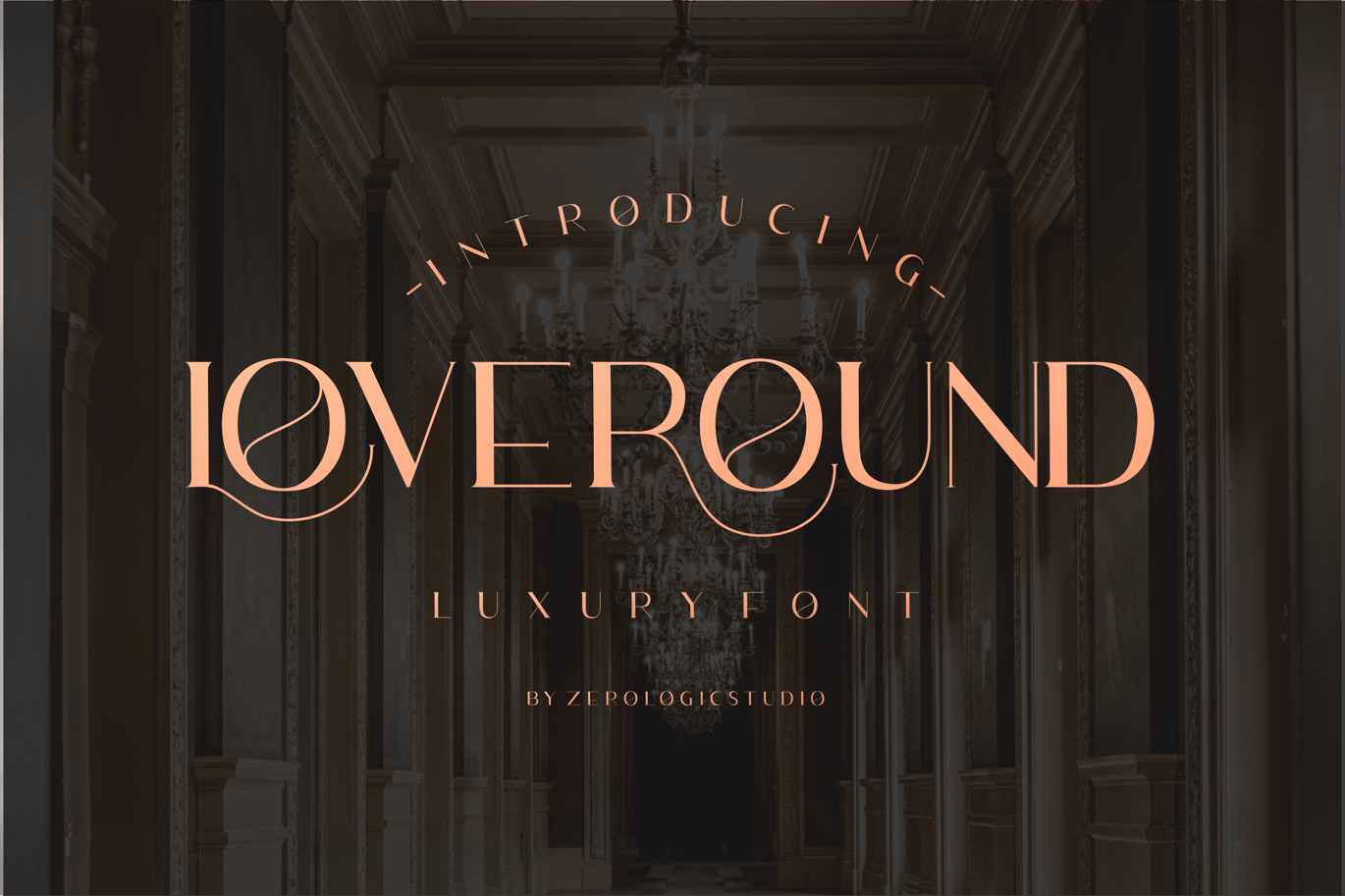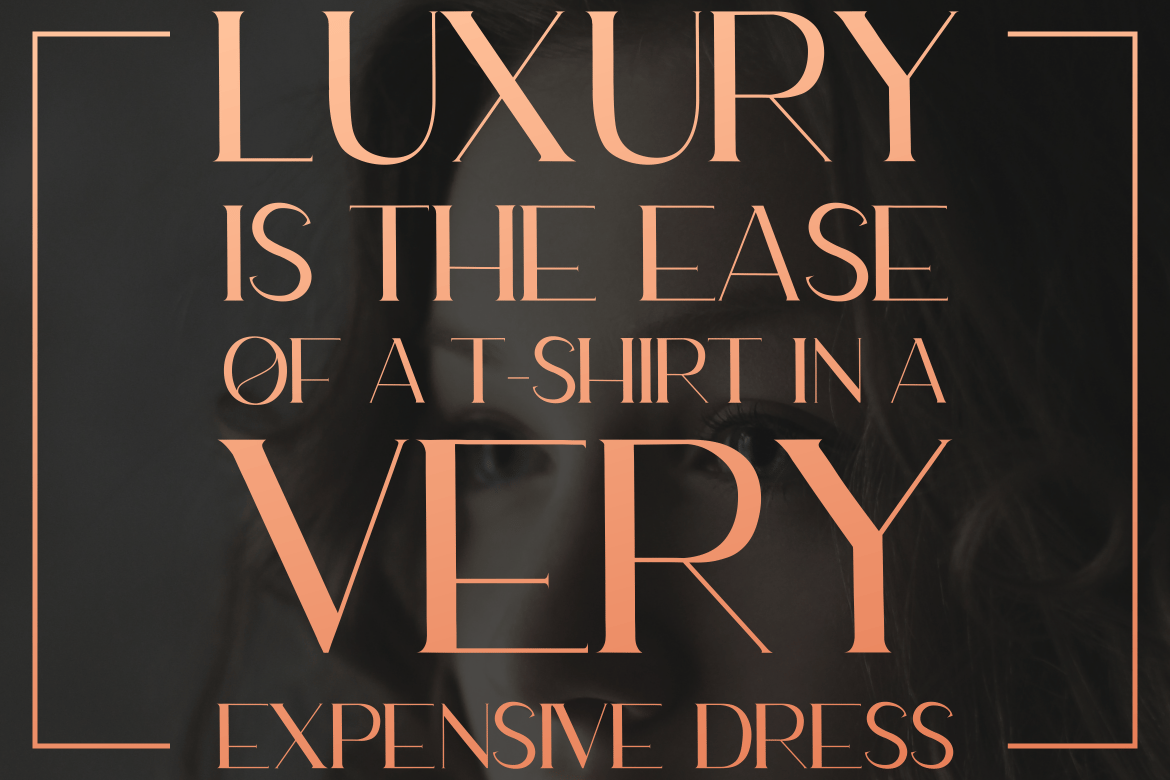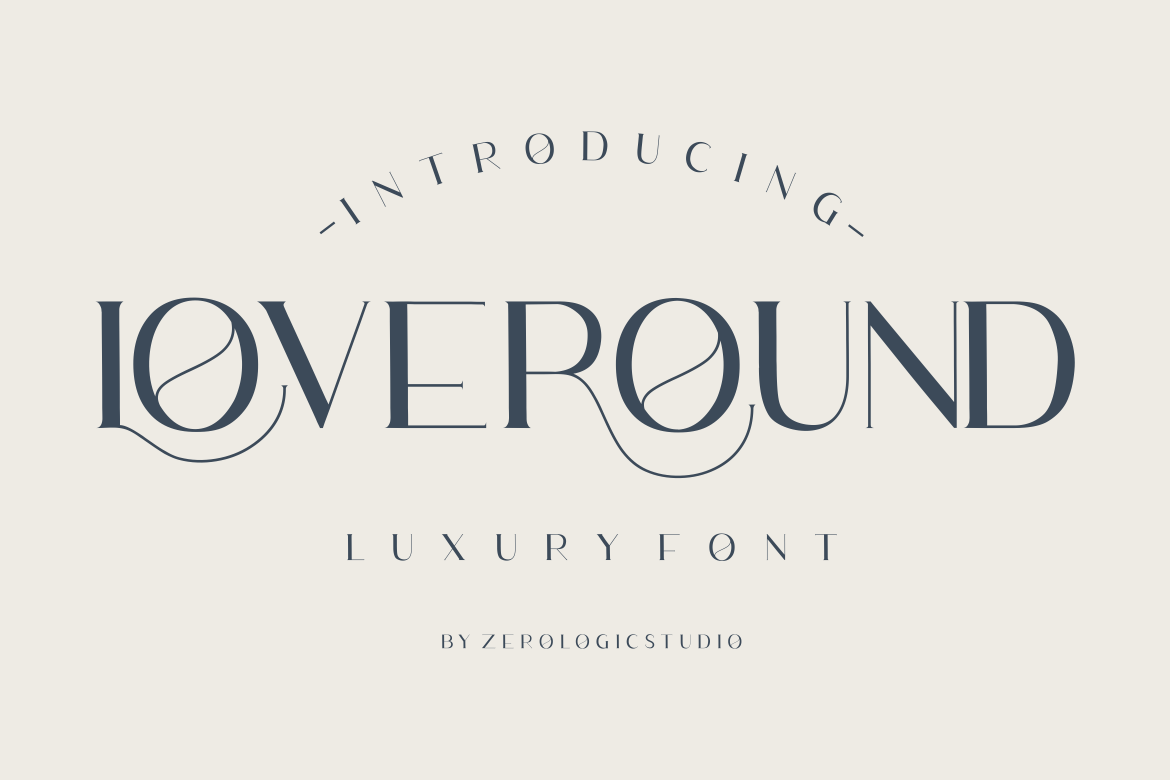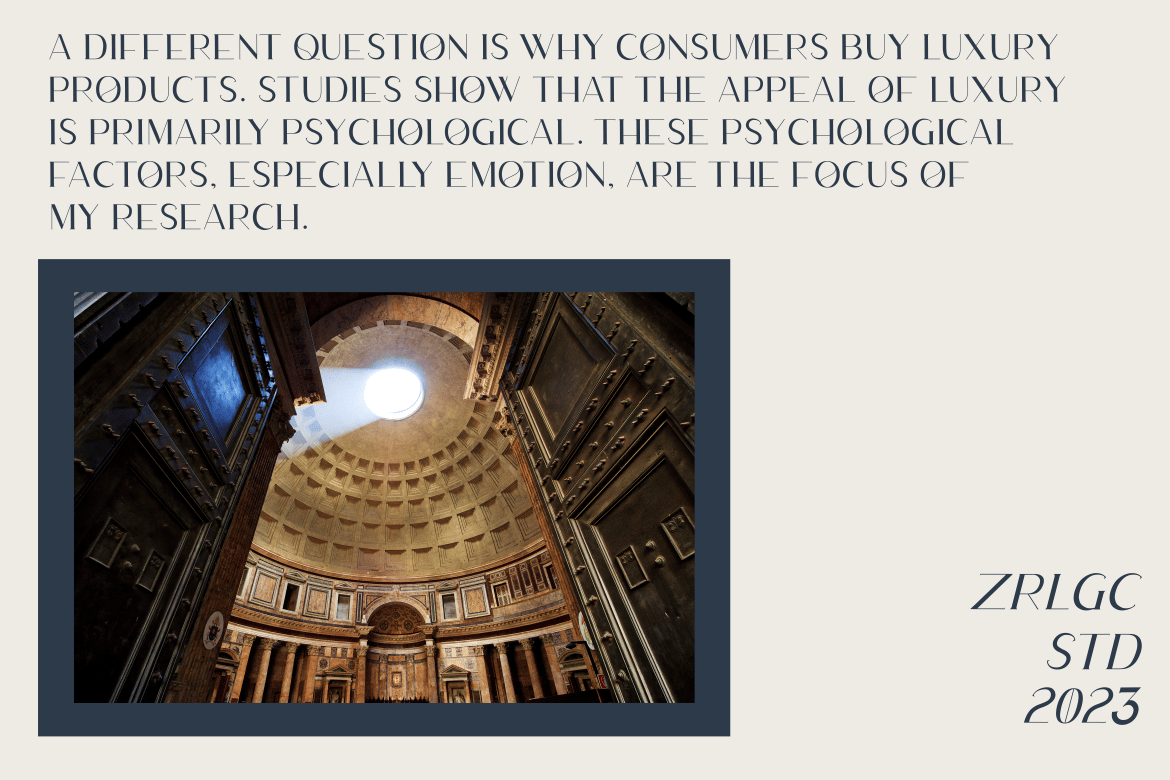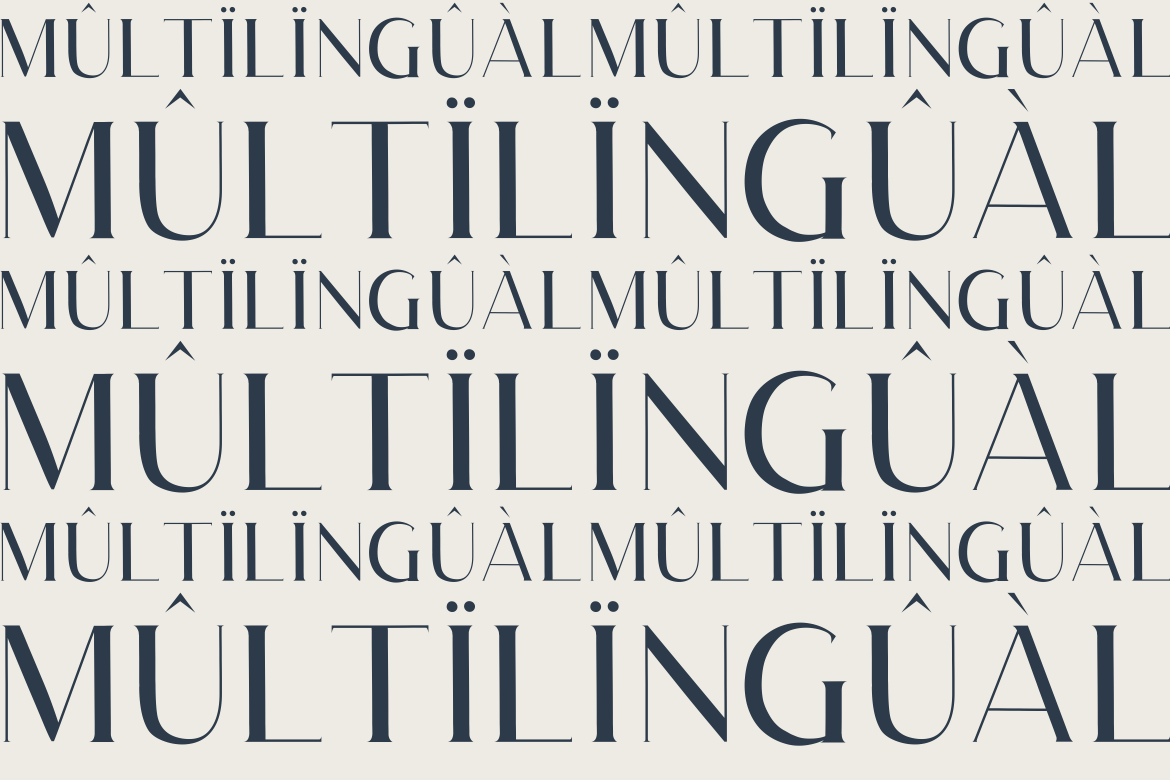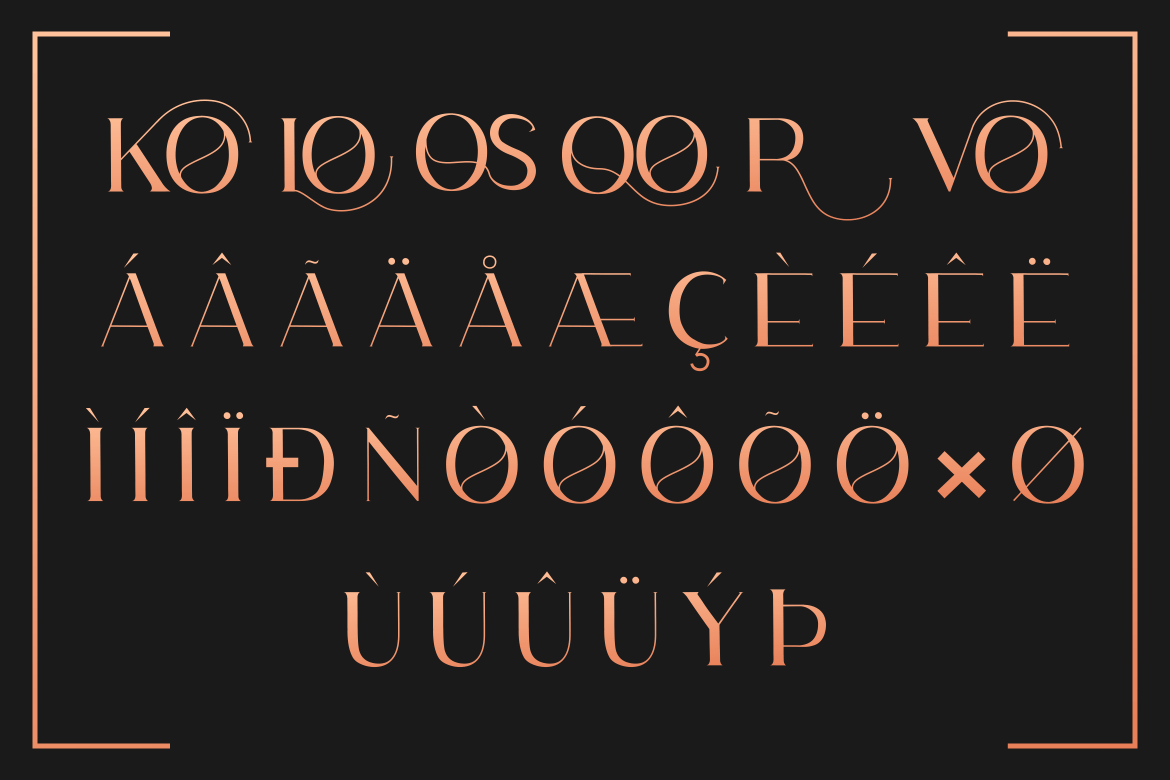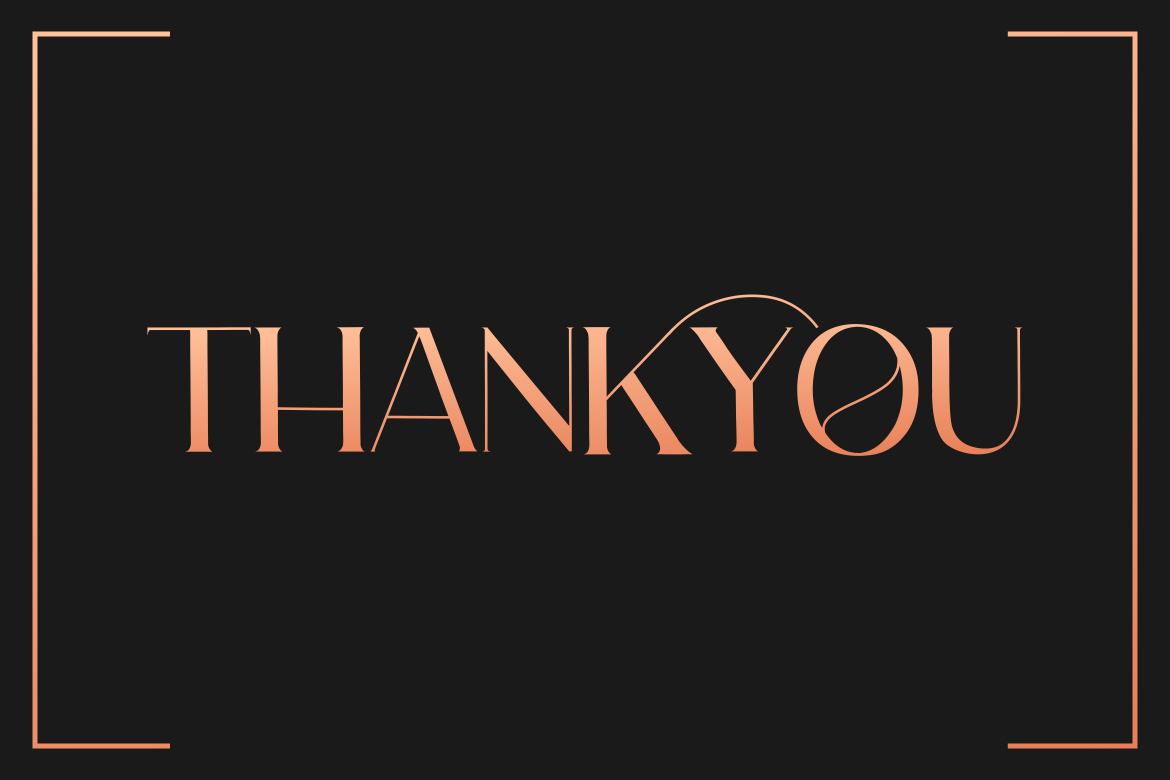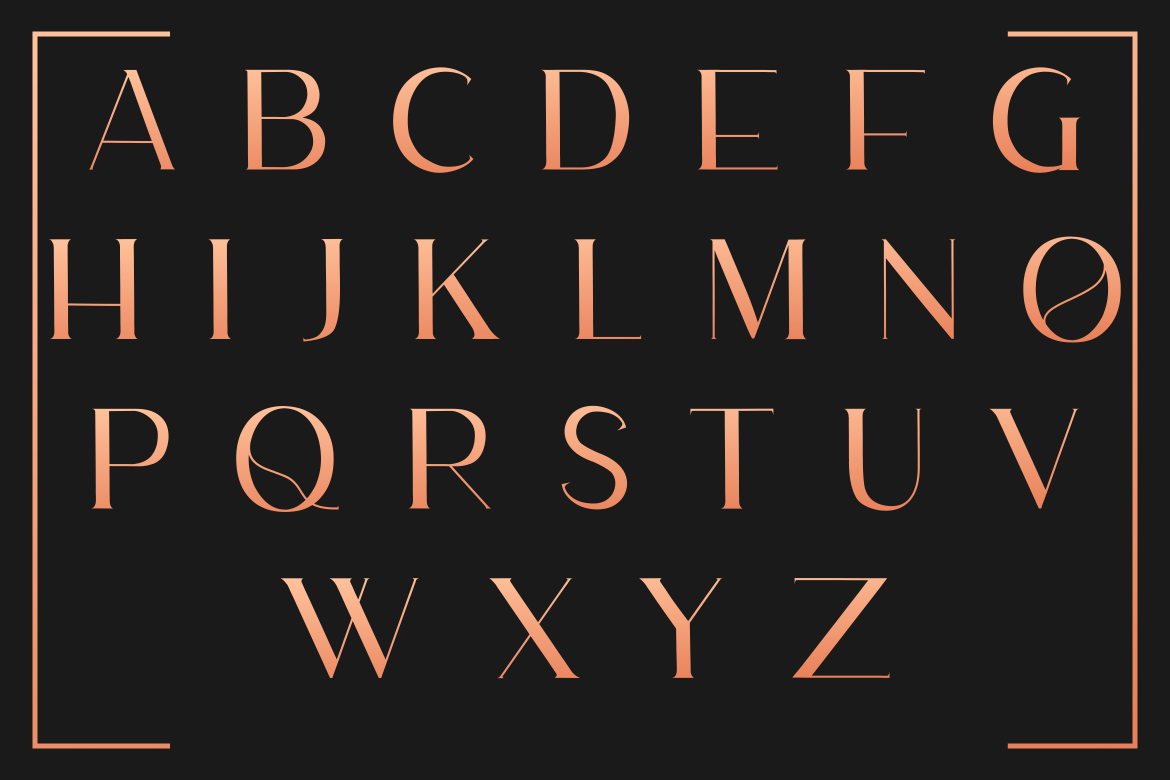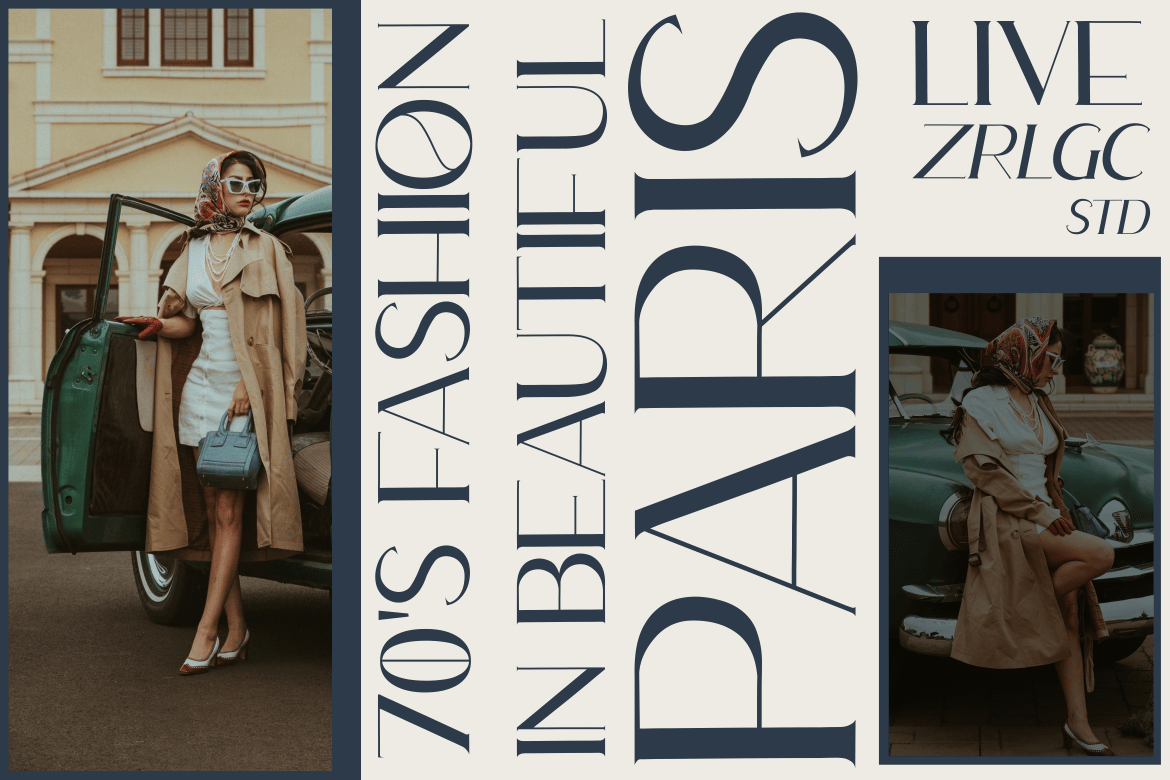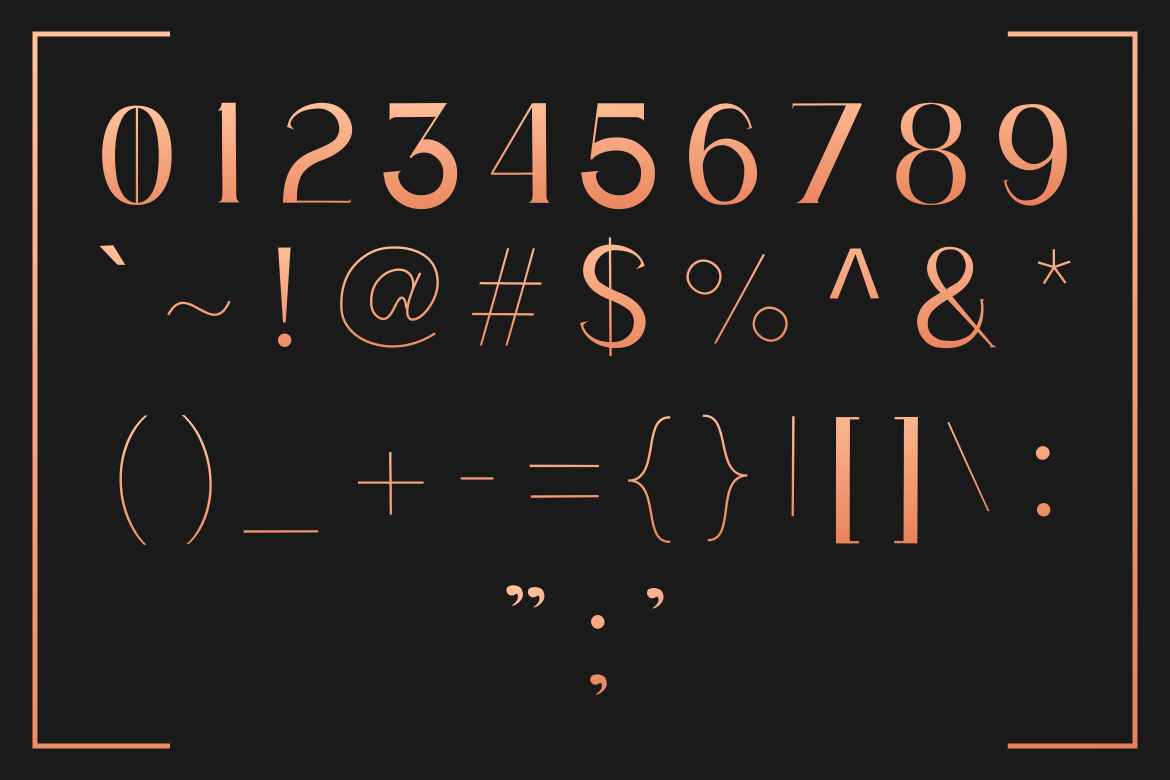
LOVEROUND LUXURY FONT
LOVEROUND modern and luxury serif font that we designed with original touch for your needs.
This cool font is complete with Uppercase, Lowercase, Numeric & symbols. This very strong and sharp font is perfect
for titles, typography, posters, magazines, brochures, packaging, Websites and much more for your design needs, making your designs more cool.